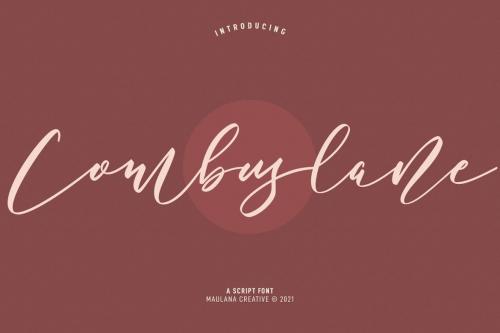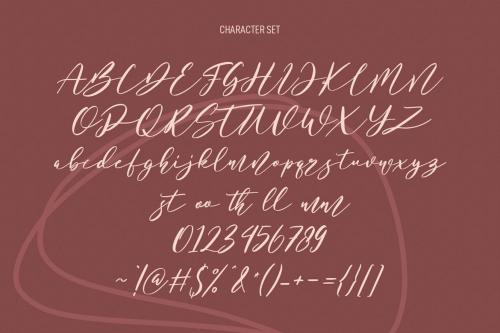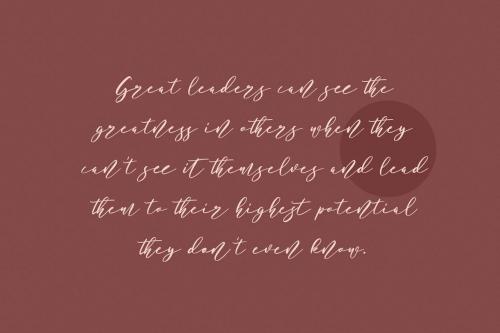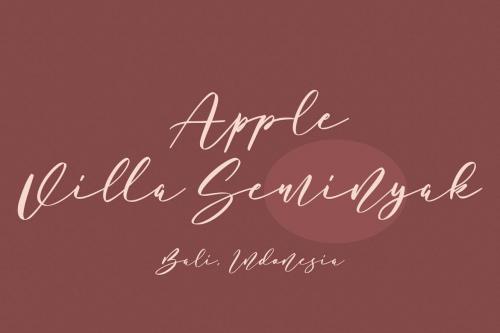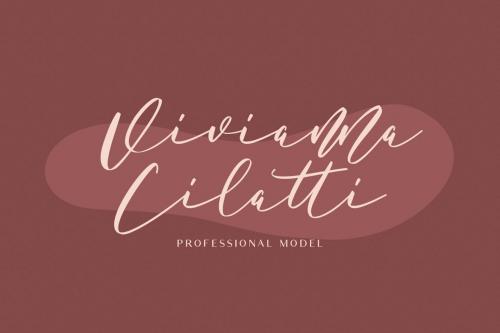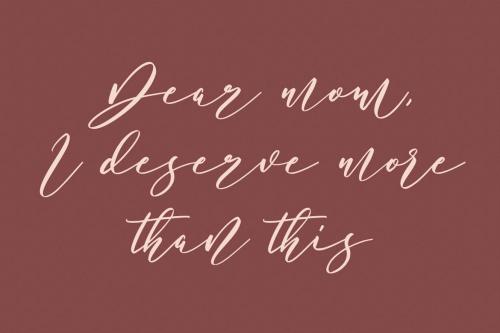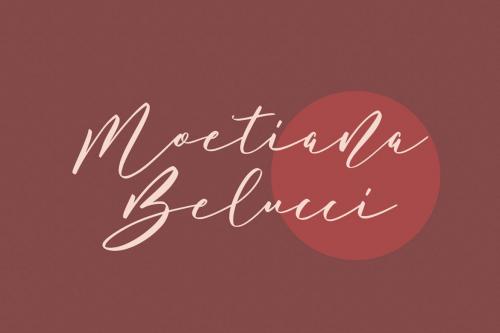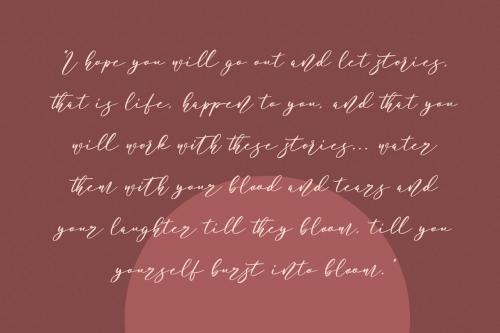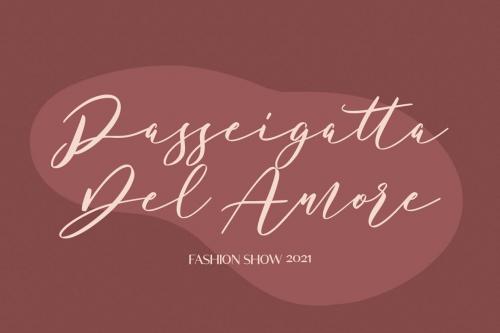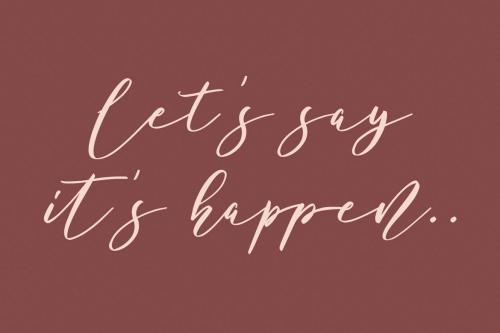
酷比曼萨 Script 字体
Combuslane Script Font
Combuslane is a slanted script font. With high contrast stroke, fun character with a bit of ligatures and has a two files lowercase alternates and swashes. To give you an extra creative work. Combuslane font support multilingual more than 100+ language. This font is good for logo design, Social media, Movie Titles, Books Titles, a short text even a long text letter and good for your secondary text font with sans or serif. Make a stunning work with Combuslane font.